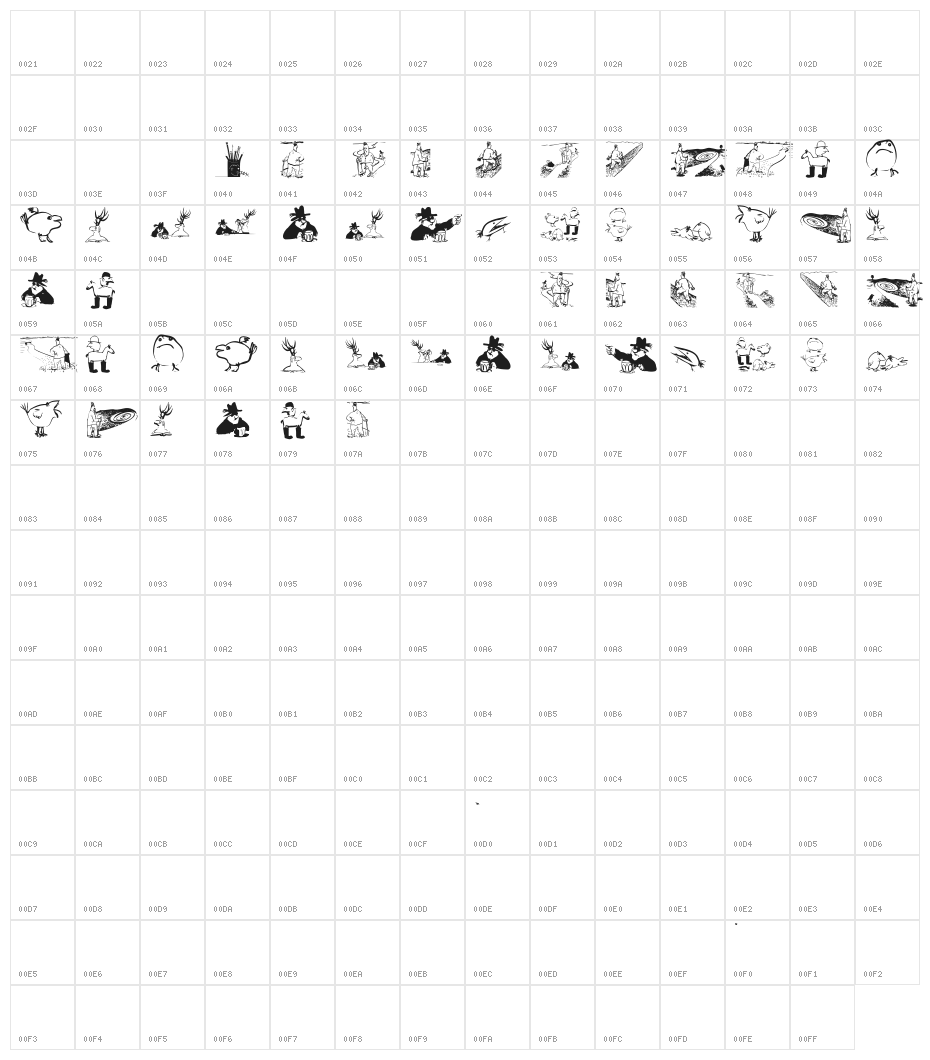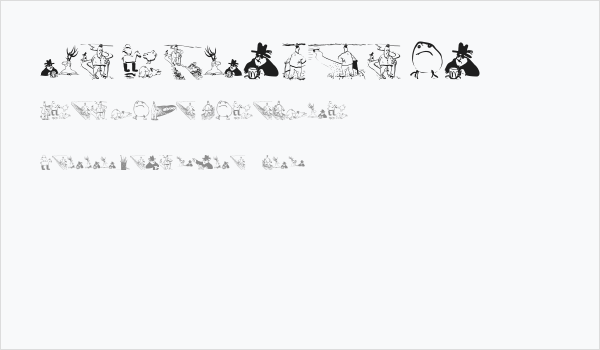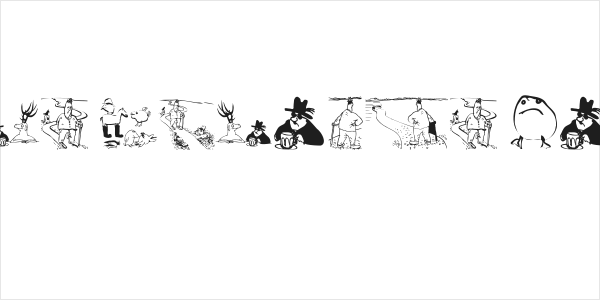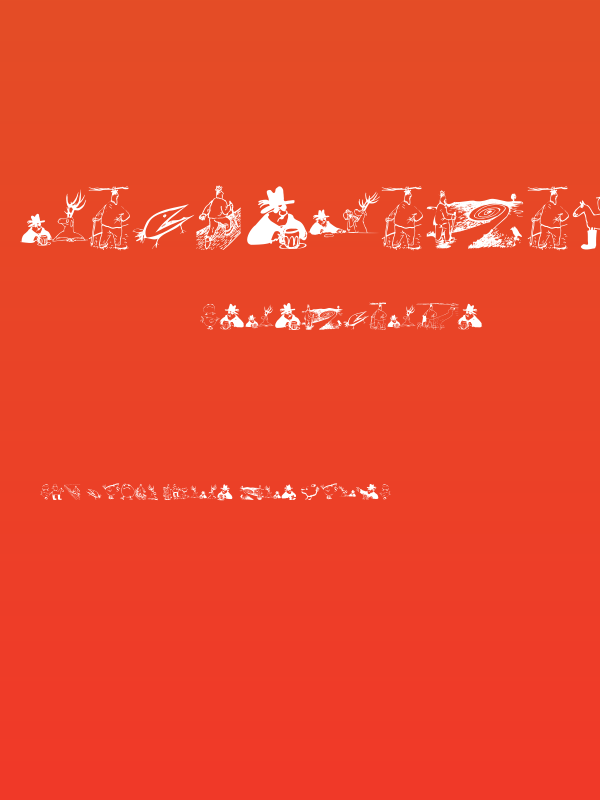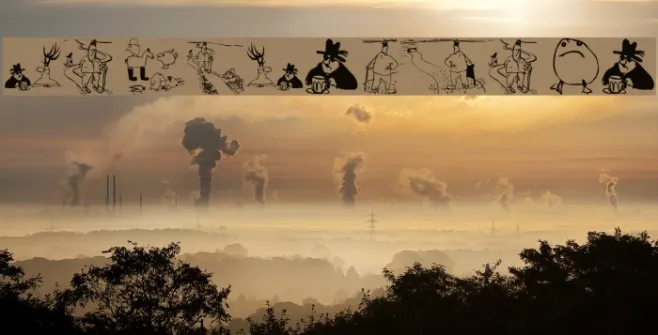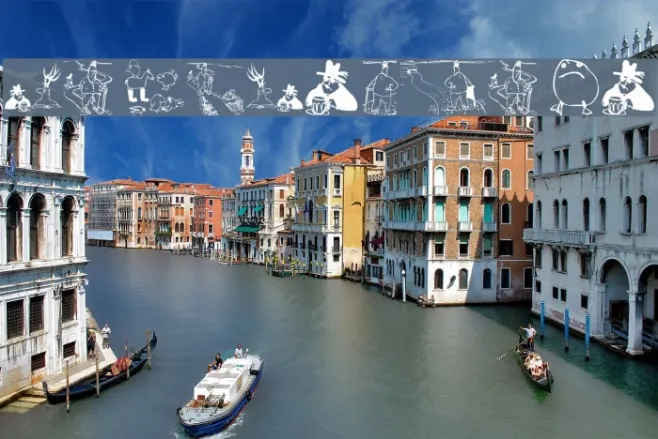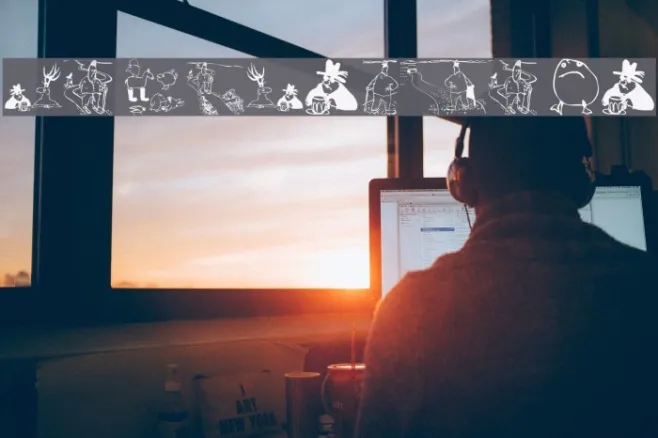
PardonAgain Font
PardonAgain Description
A highly decorative and whimsical font composed of illustrated cartoon characters and scenes, each letter and symbol represented by a unique drawing rather than traditional typographic forms. The style is playful, with a hand-drawn, comic strip aesthetic and significant variation between glyphs.
| Overall Style | Whimsical, Playful, Decorative |
| Use Case | Logos, Headlines, Posters, Children’s materials |
| Proposed Projects | Children’s books, comic titles, playful posters, novelty invitations, themed branding. |